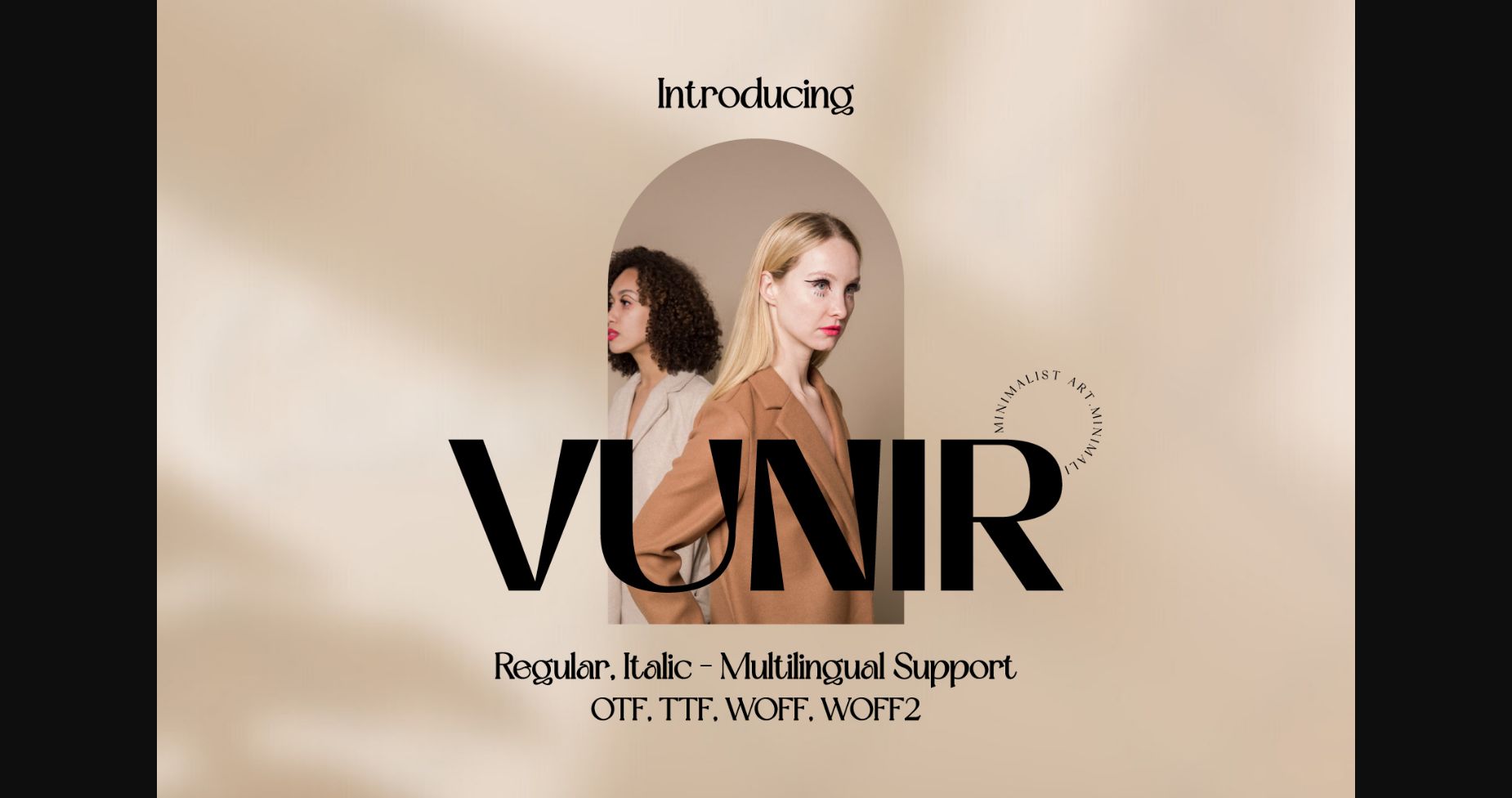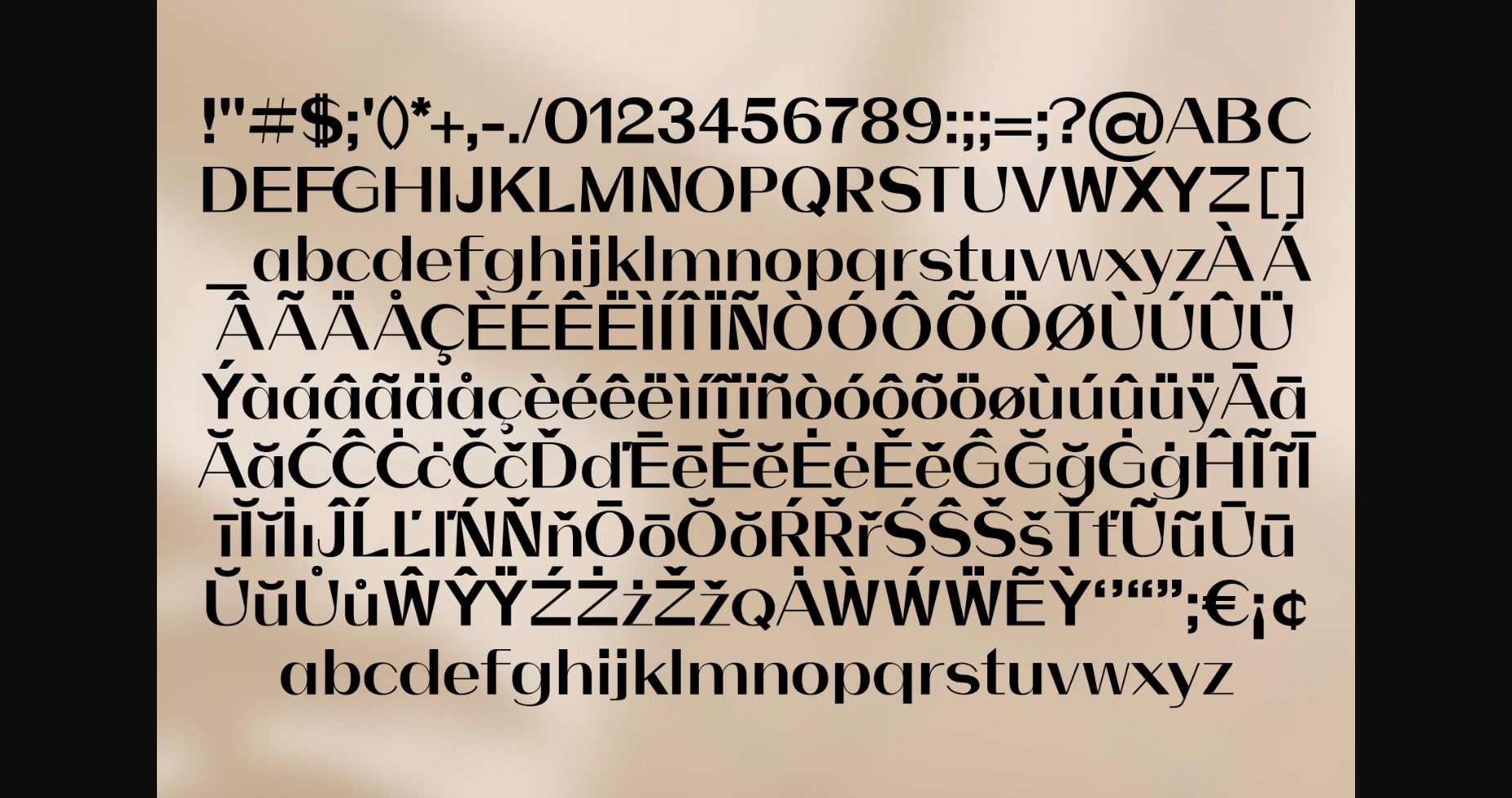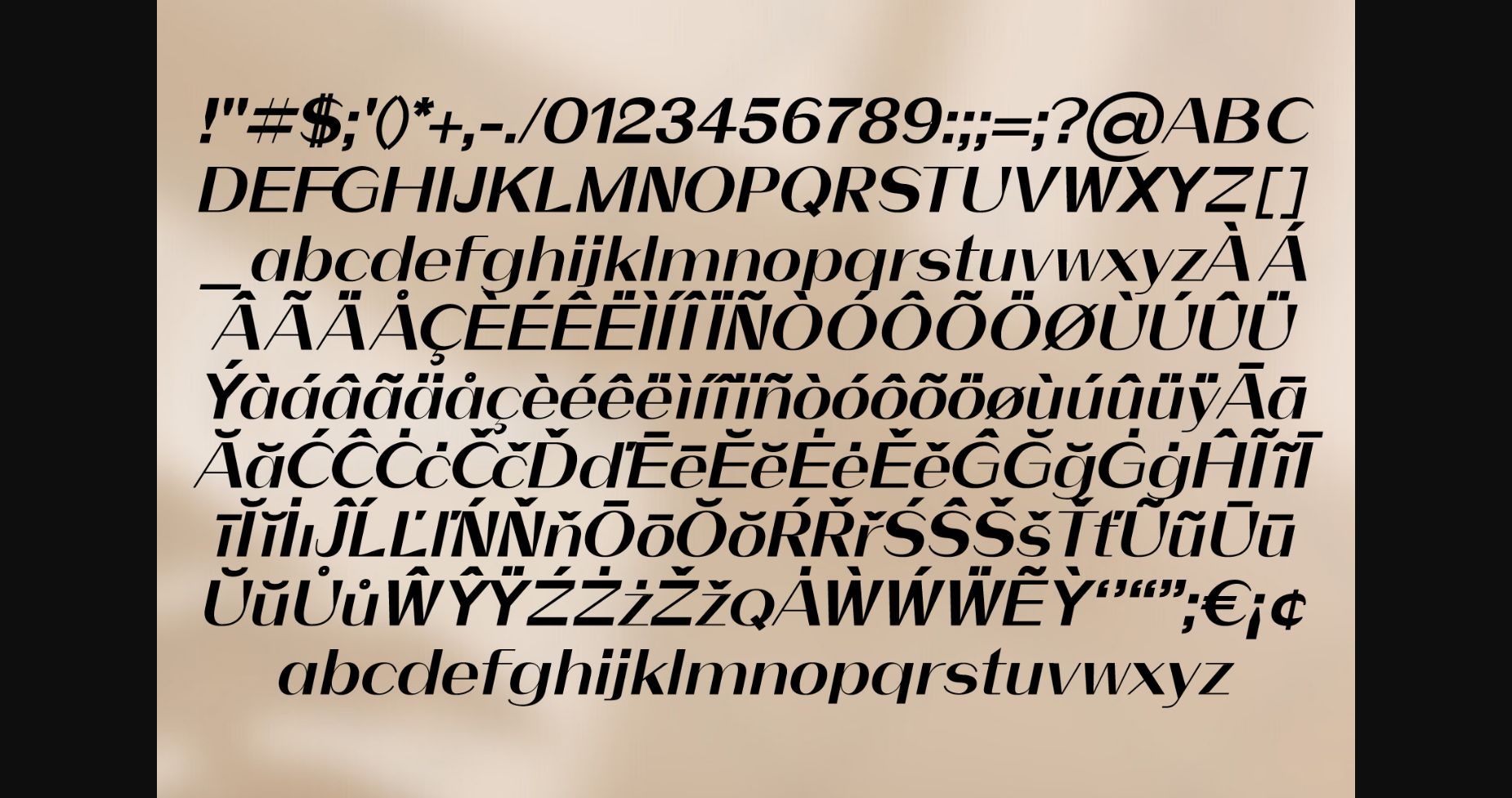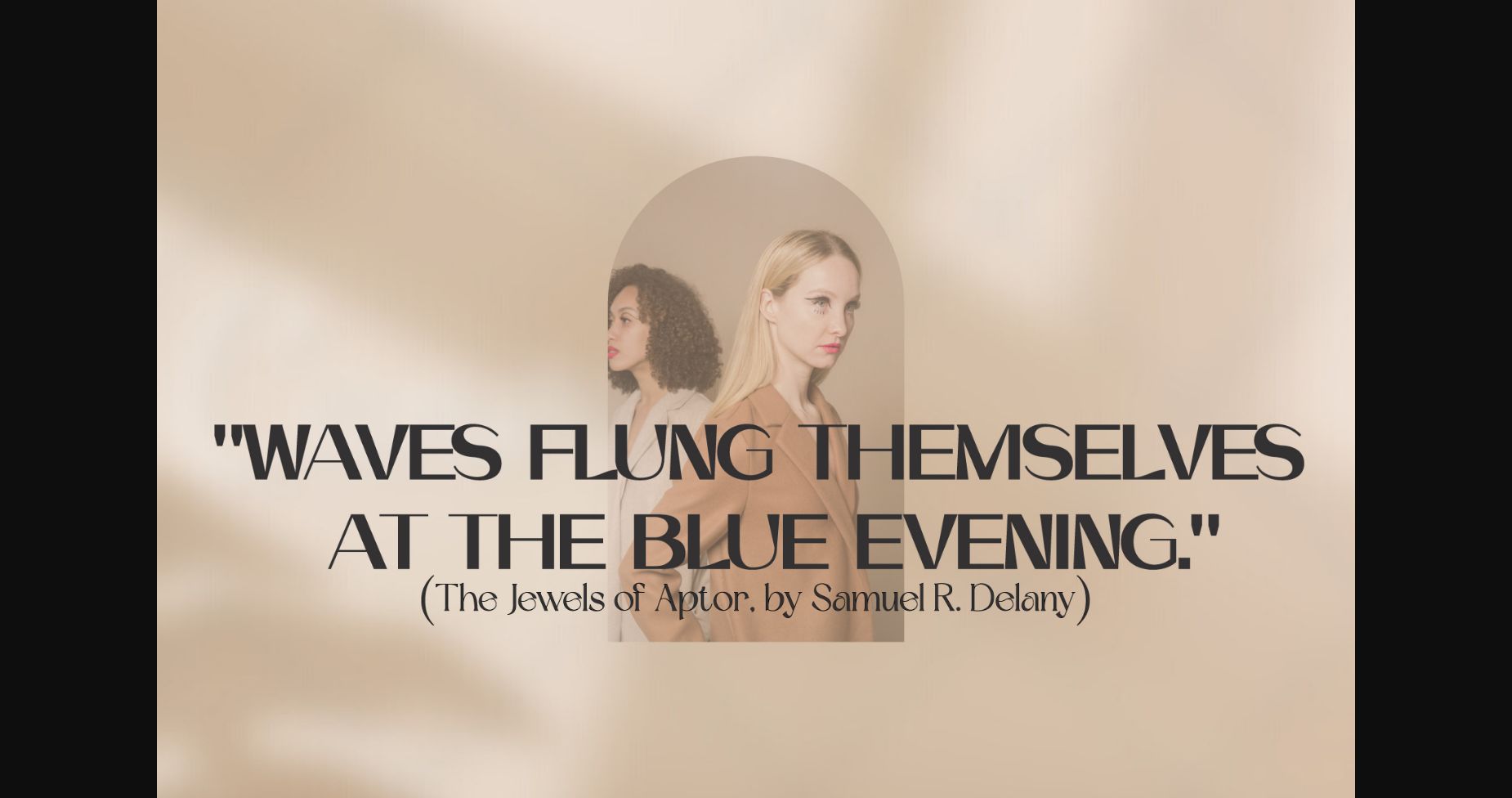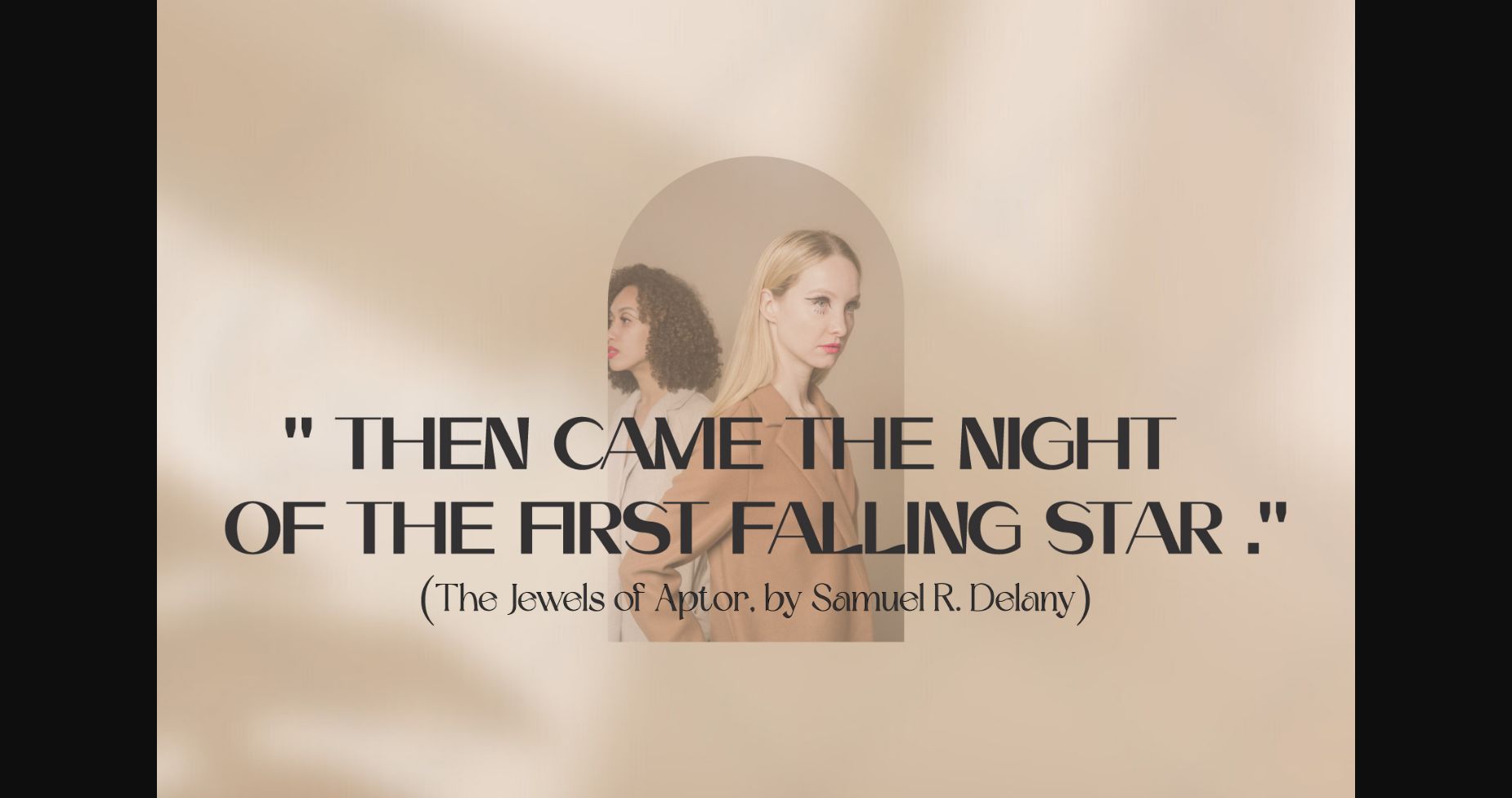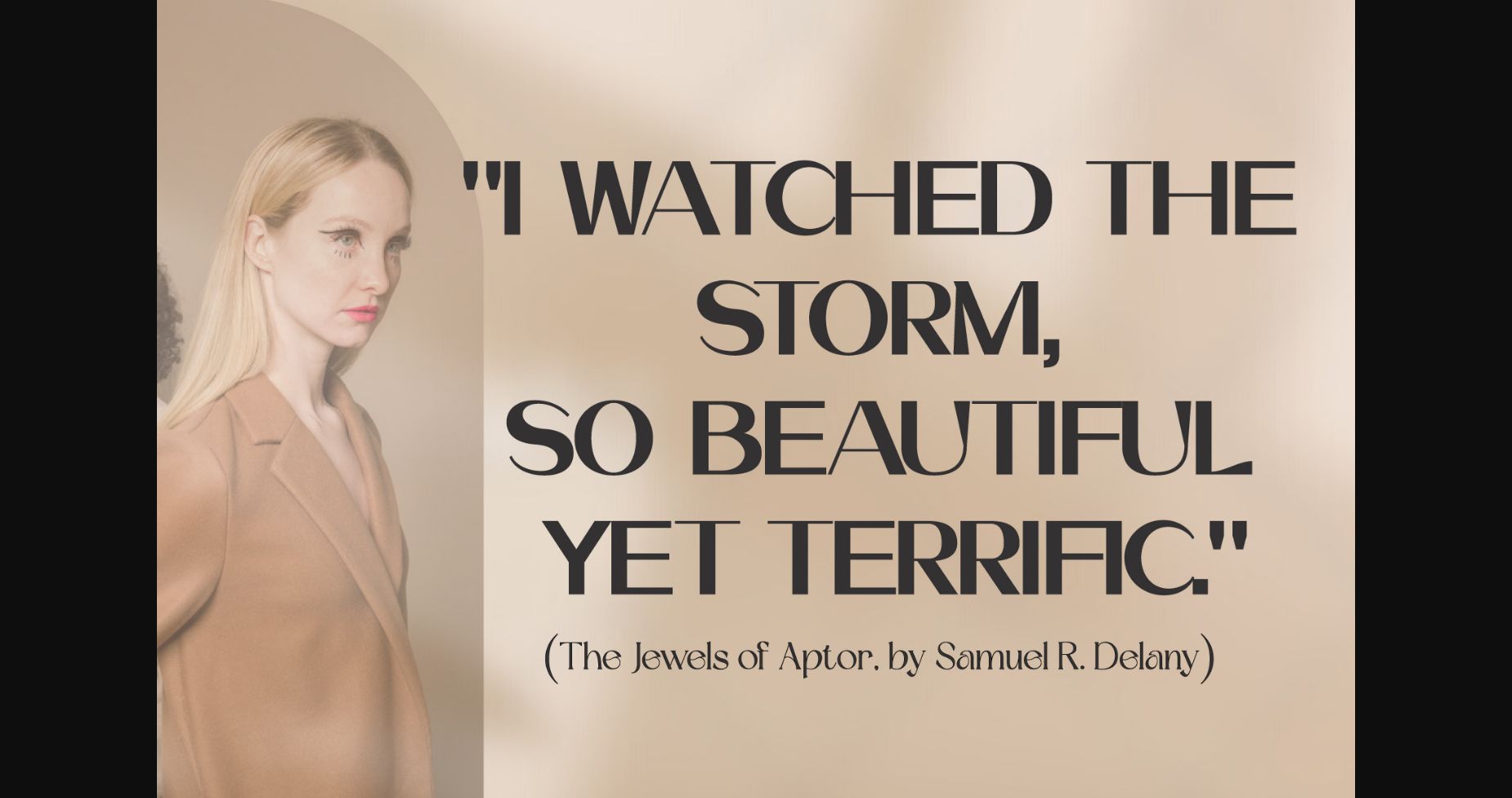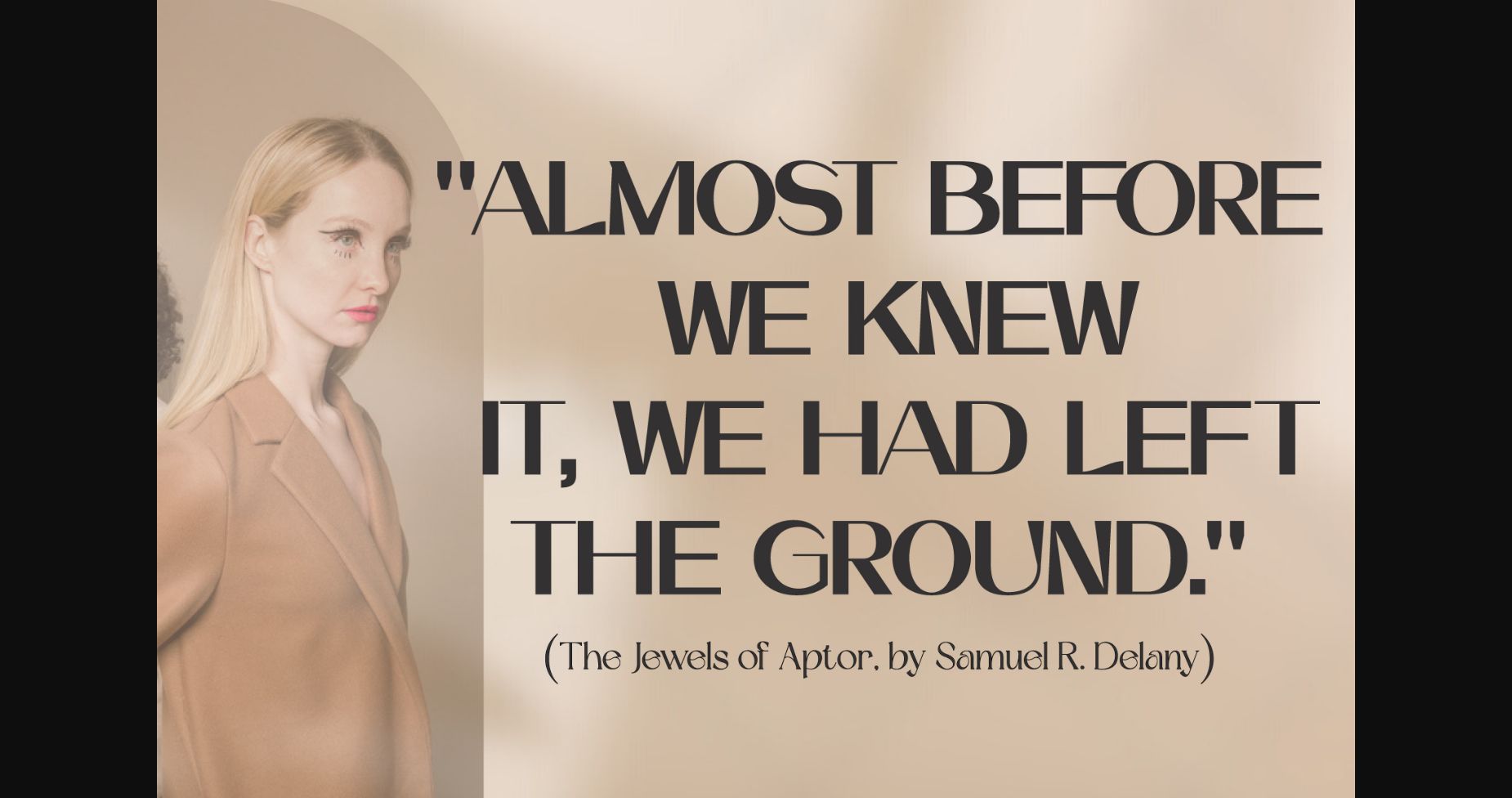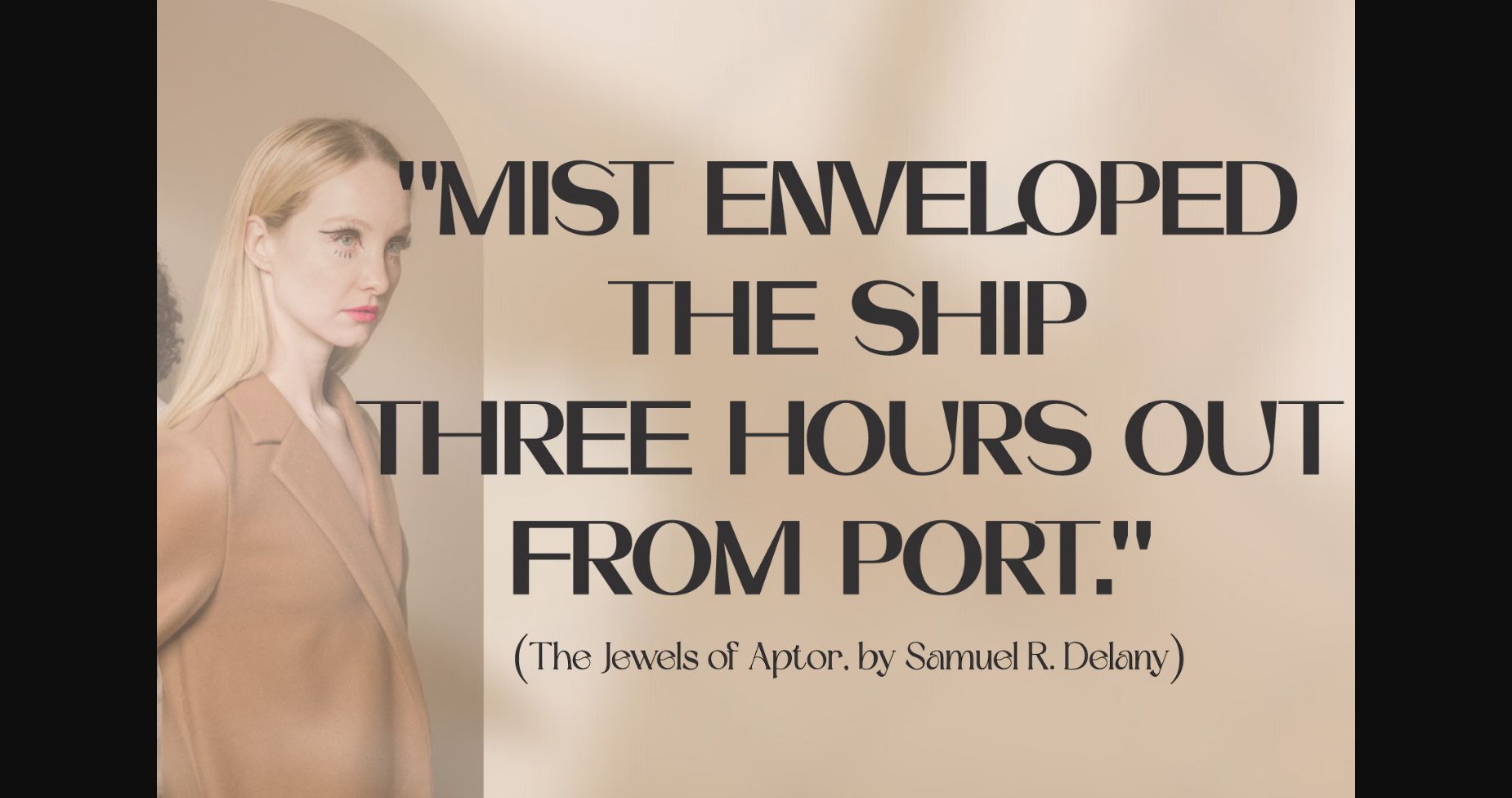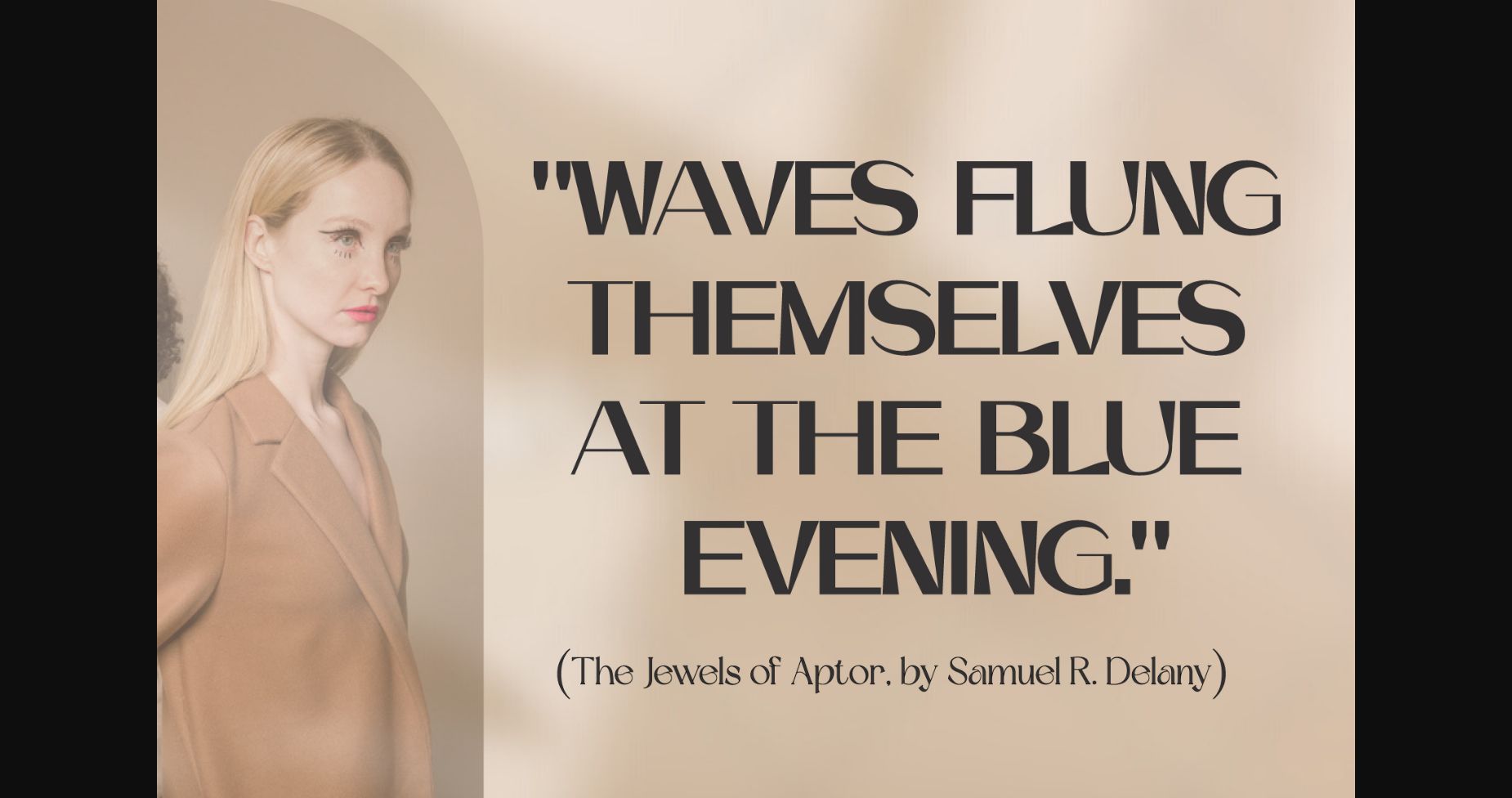
Vunir Font
About Vunir Font
Vunir is the stylish, chic, and elegant sans-serif font that is set to take your designs to the next level. With its clean lines and modern design, Vunir brings sophistication to any project. Whether you’re creating a sleek website, a chic invitation, or an eye-catching logo, this typeface will give your work the class and elegance it deserves.